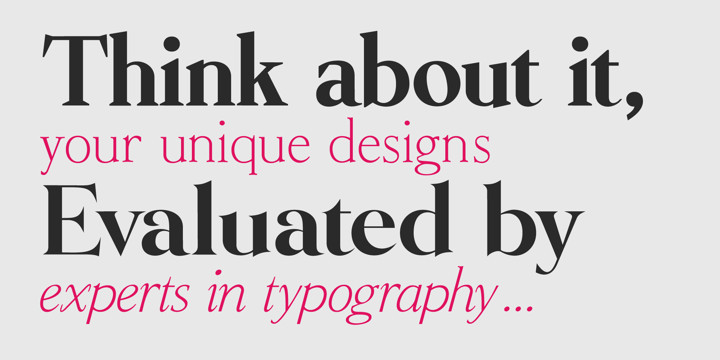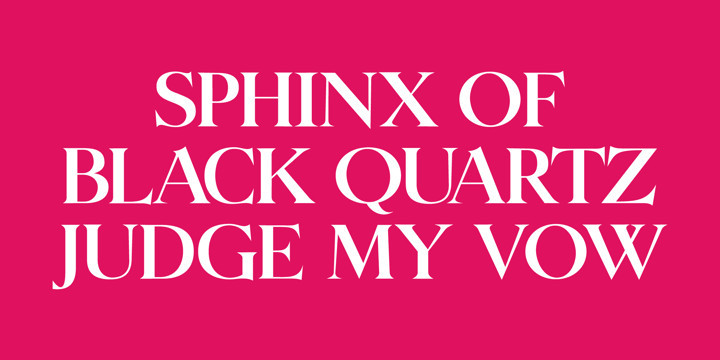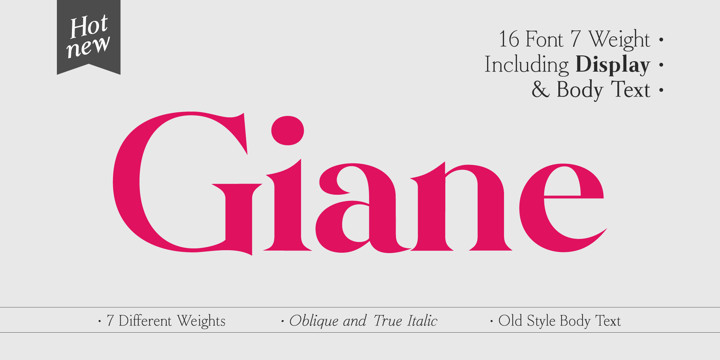
Giane Font
Giane serif is a serif font family with old style as body text and modern contemporary as display, it’s a very harmonious blend, this makes Giane very easy to read and beautiful.
Giane Text is created and inspired by old style fonts with a modifications to newer and fresher serif shapes.
Giane complet family comes with 16 fonts, 7 different weights, oblique and true italic including display and body text.